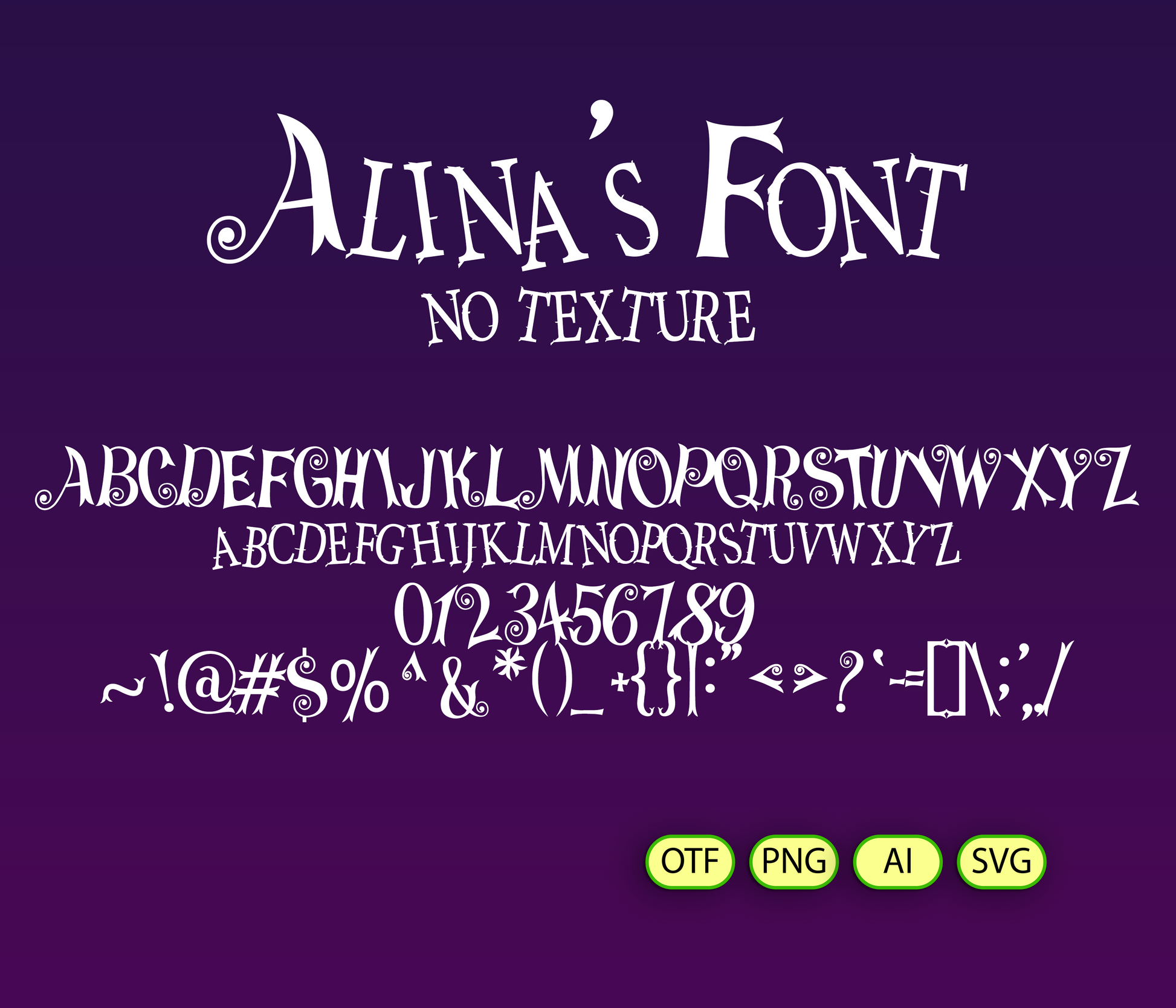
Spectral Prankster Sequel Font
Dive into the outlandish, otherworldly realm of our favorite supernatural troublemaker with our specially crafted font, embodying the spirit of the highly anticipated sequel. This typeface is perfect for fans, event planners, and designers looking to capture the essence of the ghostly trickster's return. Use it to create eye-catching event invitations, themed merchandise, or digital content that exudes the zany, off-kilter energy of this spooky follow-up.
What is the Spectral Prankster Sequel font?
Our font is a visual homage to the quirky, gothic aesthetic that defines this supernatural comedy franchise. It features warped, playful letterforms that seem to squirm and dance, as if animated by otherworldly forces. Each character embodies the perfect mix of horror and humor, ideal for projects aiming to recreate the unique atmosphere of the original film and its much-anticipated sequel.
What You Can Do With Spectral Prankster Sequel Textured Font
This versatile font is suitable for a wide array of creative applications:
1. Halloween Event Promotions: Design striking invites, posters, and banners for themed parties and movie screenings.
2. Eerie Merchandise Design: Create T-shirts, posters, and accessories that embody the essence of the afterlife antihero.
3. Digital Media: Enhance websites, blogs, and social media with spooky, humorous headers and graphics.
4. Fan Art and Cosplay: Add authentic flair to fan creations and costume designs.
5. Gothic-Inspired Projects: Perfect for any project needing a touch of the macabre and mischievous.
6. Film and Theater Promotions: Ideal for marketing materials related to supernatural comedies or offbeat productions.
Feature Highlights and Bonuses:
• Comprehensive Character Set: Offers a wide range of characters, including spooky alternatives and ligatures.